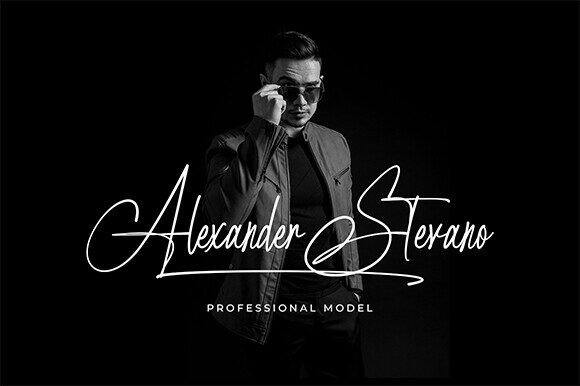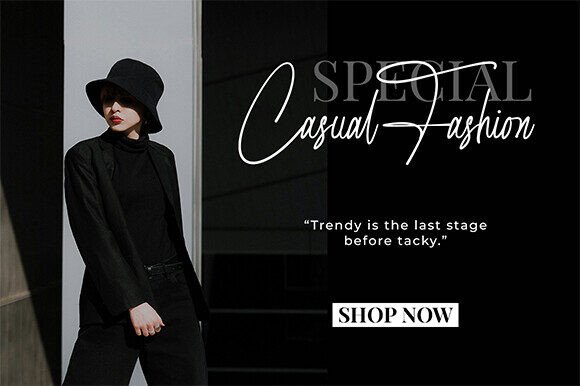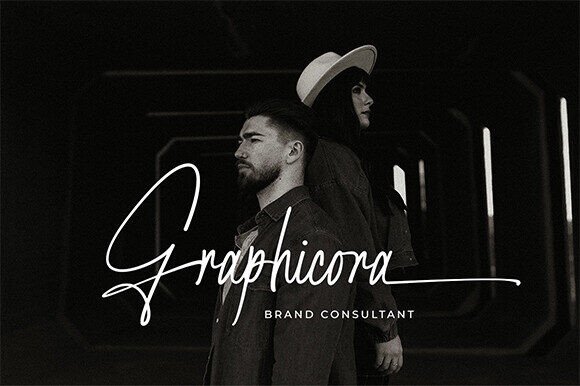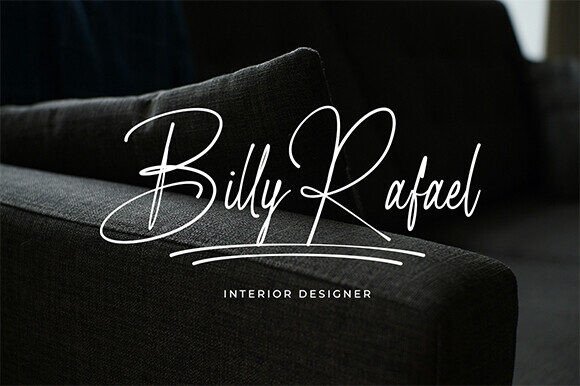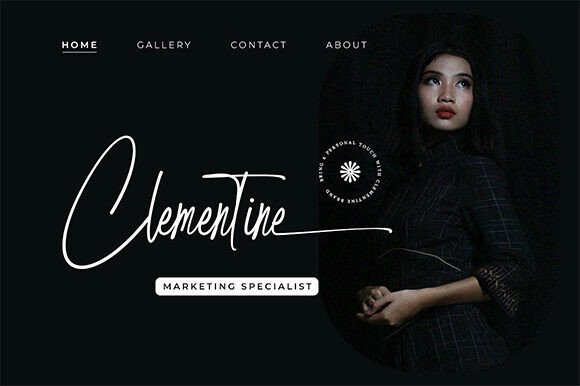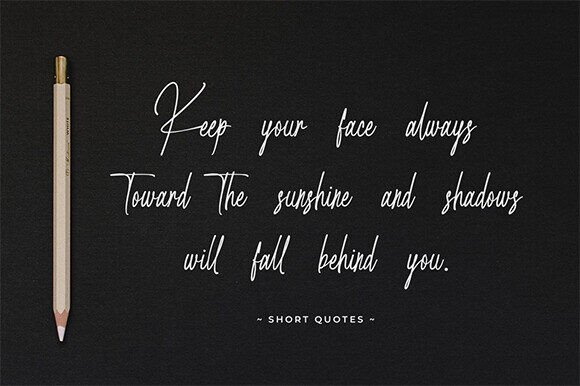
Introducing Handwritania Font: Elevate Your Designs with Timeless Elegance
In the world of typography, few fonts capture the essence of luxury and personal touch as effortlessly as Handwritania. This stylish signature font is meticulously designed to bring smooth, flowing strokes and timeless elegance to your designs. Whether you’re a designer, crafty DIY enthusiast, or a business looking to elevate your brand, Handwritania offers the perfect blend of sophistication and charm.
The Beauty of Handwritten Signatures
Handwritten signatures have always been a symbol of personal identity and elegance. They add a human touch to any piece of communication, making it more relatable and memorable. However, not everyone possesses the flair for beautiful handwriting. This is where Handwritania comes into play, offering a digital solution that replicates the beauty of handwritten signatures with impeccable precision.
Key Features of Handwritania Font
- Smooth and Flowing Strokes: Each letter in Handwritania is crafted to ensure smooth transitions between strokes, mimicking the natural flow of handwriting.
- Timeless Elegance: The font exudes a classic charm that never goes out of style, making it suitable for both contemporary and traditional designs.
- Versatility: From logos and wedding invitations to business cards, packaging, and high-end branding, Handwritania can elevate a wide range of design projects.
- Easy to Read: Despite its elegant nature, Handwritania remains highly legible, ensuring your message is communicated clearly and effectively.
Applications of Handwritania Font
Handwritania’s versatility makes it an excellent choice for various design applications:
1. Logos and Branding
For businesses aiming to establish a luxurious and personalized brand image, Handwritania can be a game-changer. Its unique style can help your logo stand out and make your brand more memorable.
2. Wedding Invitations and Stationery
Adding a touch of elegance to wedding invitations, thank you cards, and other stationery, Handwritania can make your special moments even more memorable.
3. Business Cards and Packaging
Elevate your professional image with stylish business cards and packaging that reflect a sense of luxury and attention to detail.
4. Social Media and Digital Content
Stand out on social media platforms with eye-catching graphics and posts that utilize Handwritania’s elegant charm, making your content more engaging and shareable.
Why Choose Handwritania?
In a digital age where uniformity often prevails, Handwritania offers a refreshing alternative that can add a personal touch to your designs. Its combination of elegance, versatility, and readability makes it an invaluable asset for designers and crafters looking to infuse their work with a sense of luxury and sophistication.
Handwritania is more than just a font; it’s a design element that can transform your projects with its stylish, signature look. By bringing a touch of timeless elegance and personal charm, Handwritania enables you to create designs that are not only visually stunning but also deeply engaging. Whether you’re a professional designer or a crafting enthusiast, Handwritania is your key to unlocking a world of luxurious and memorable designs.